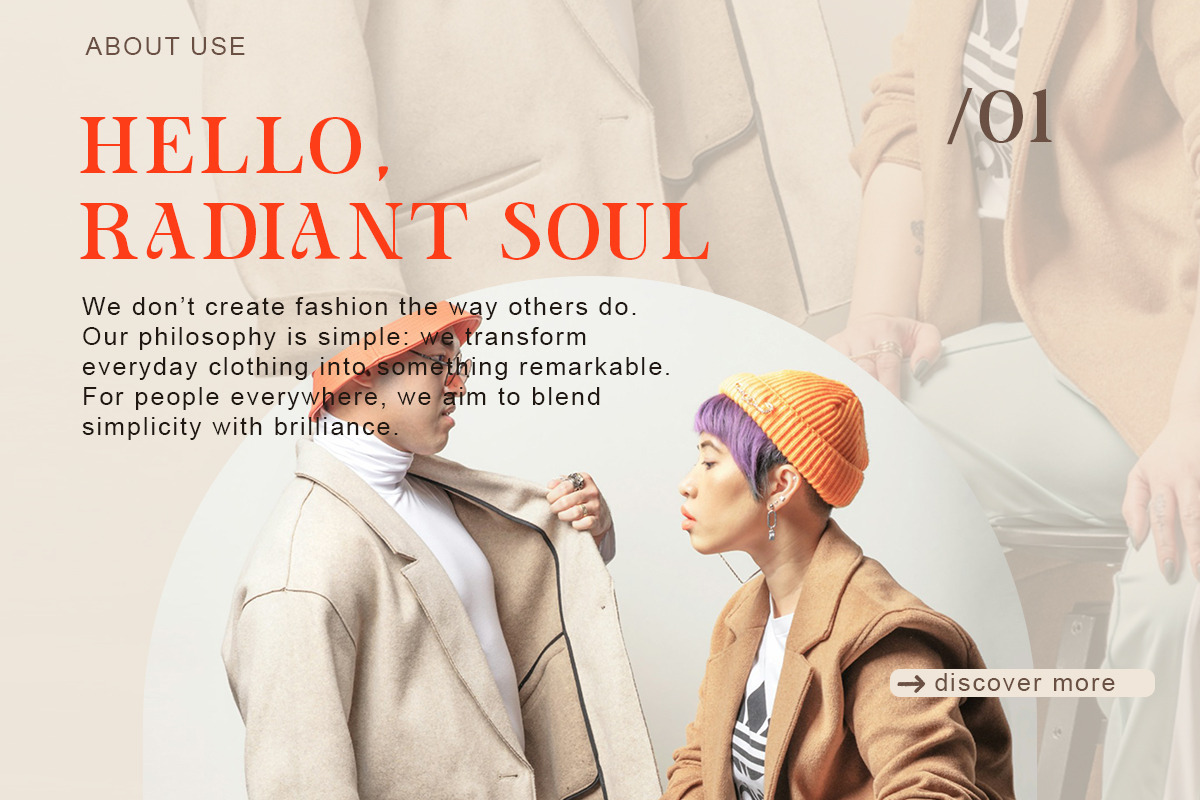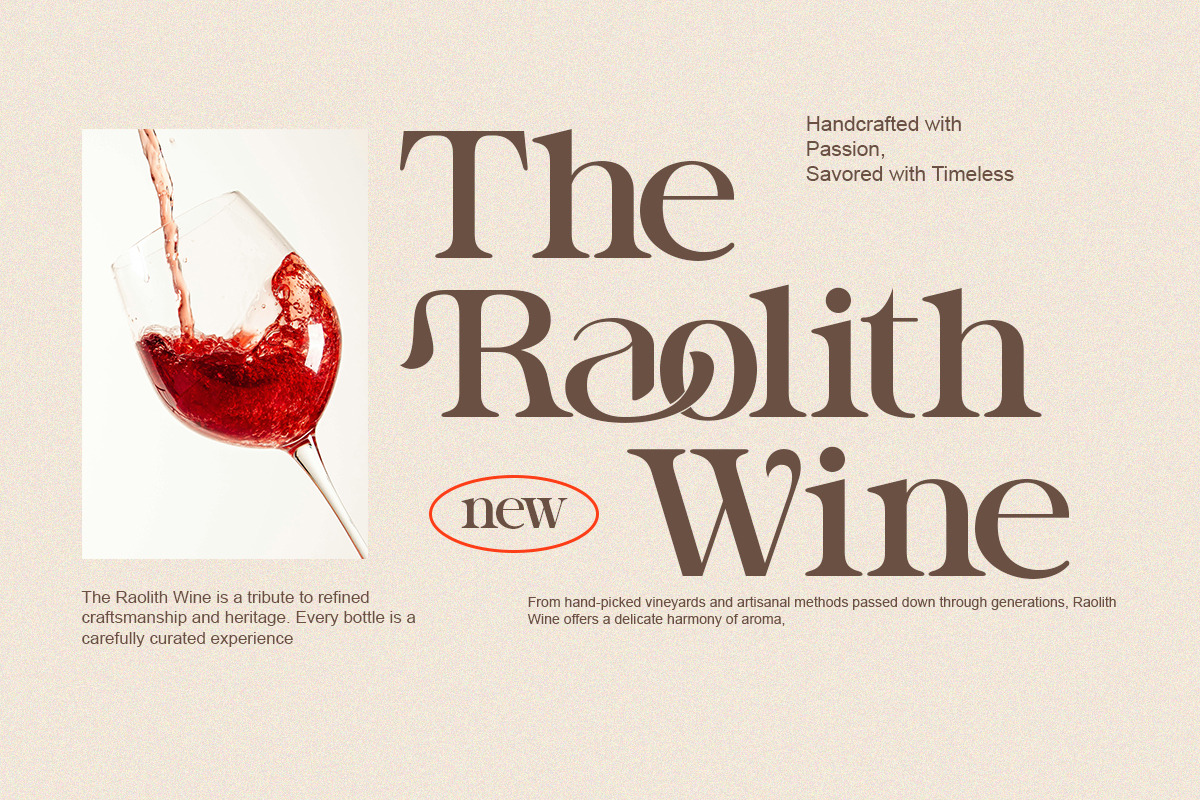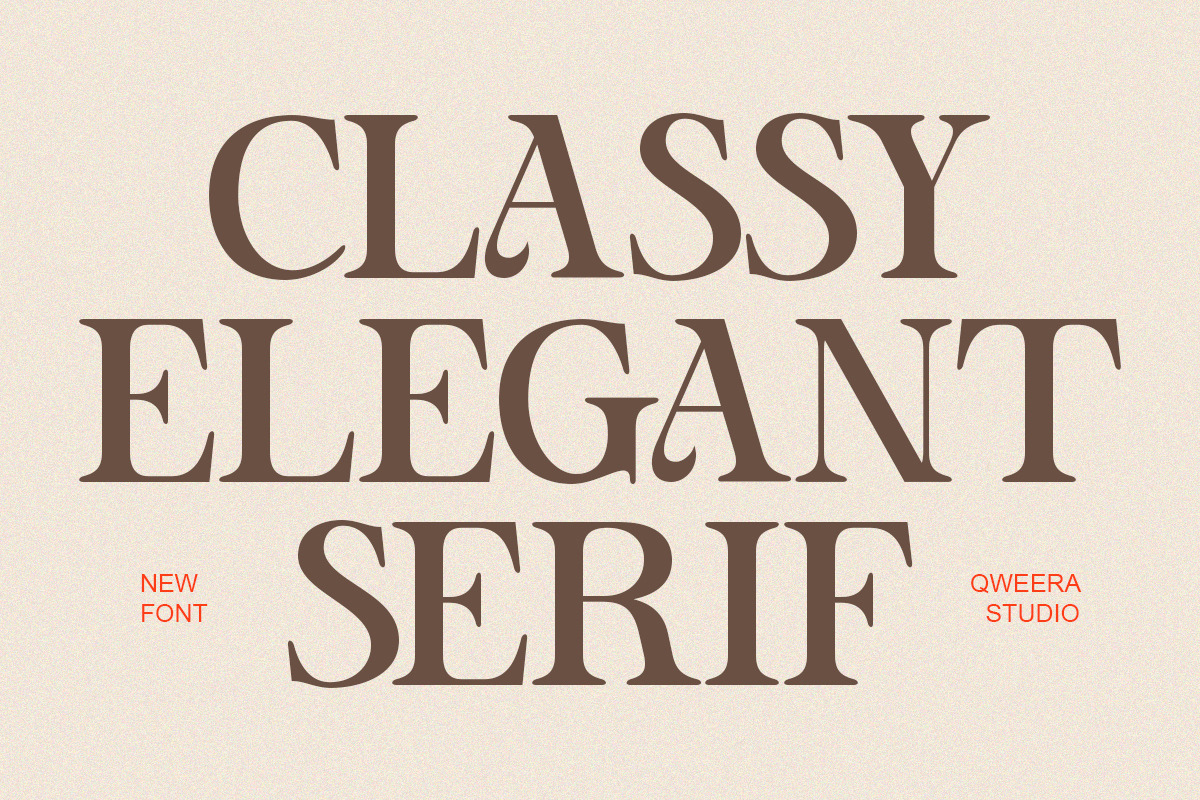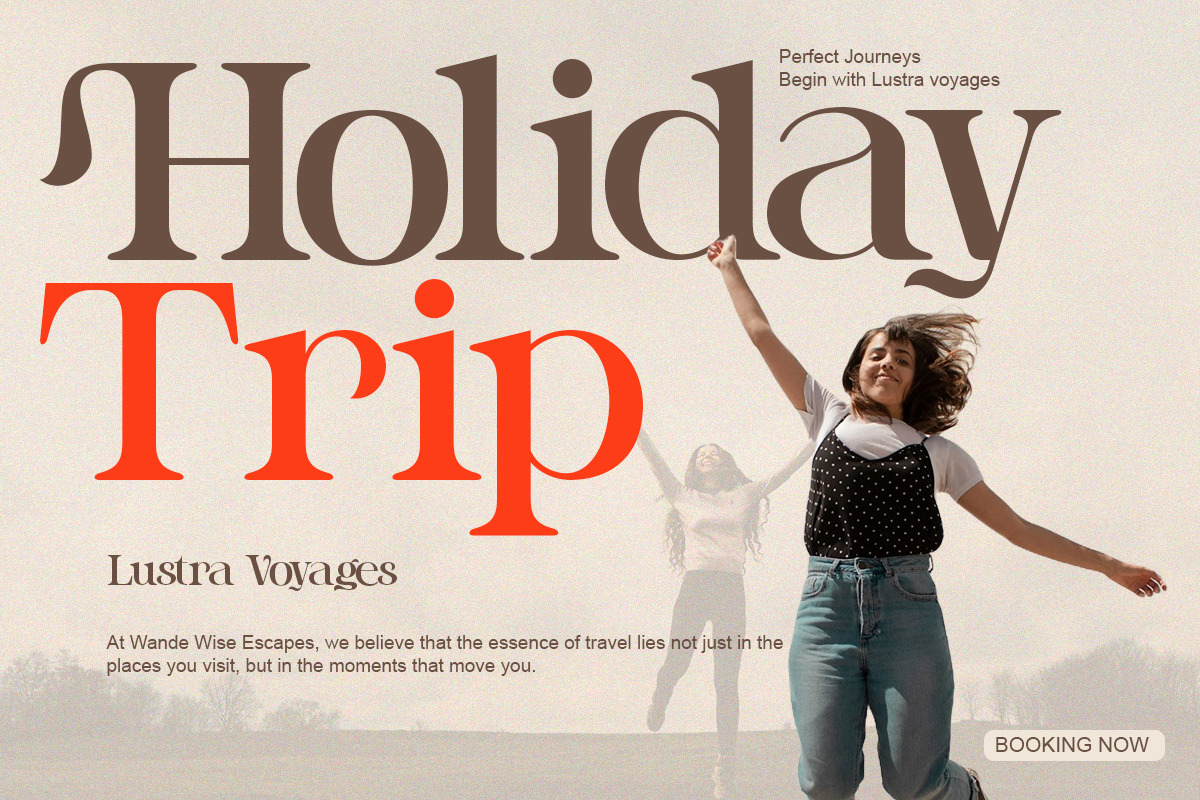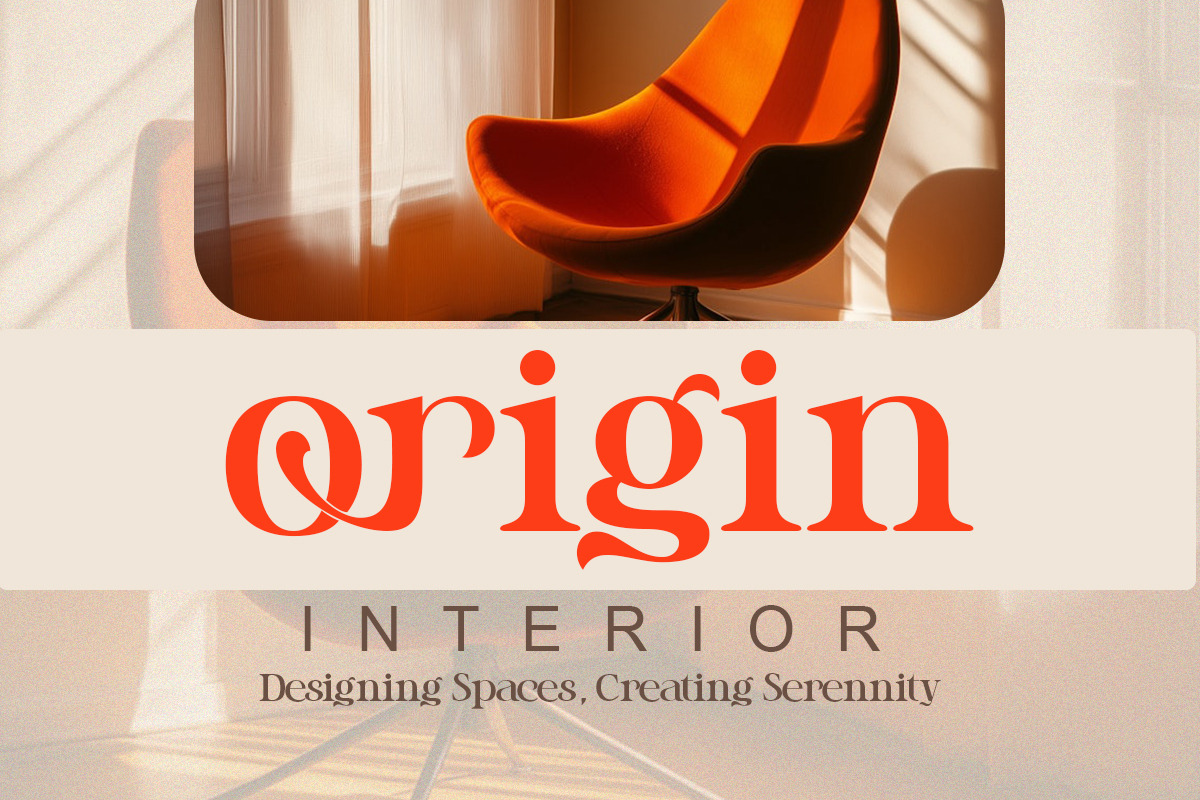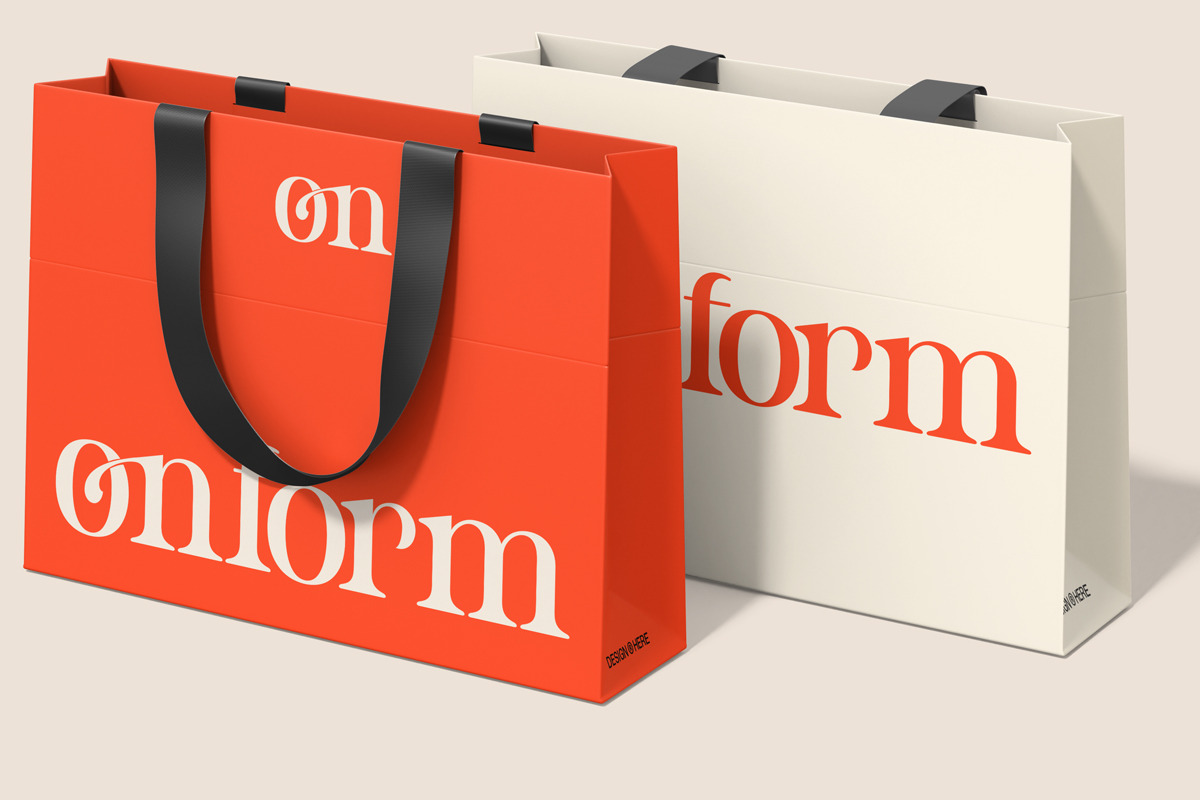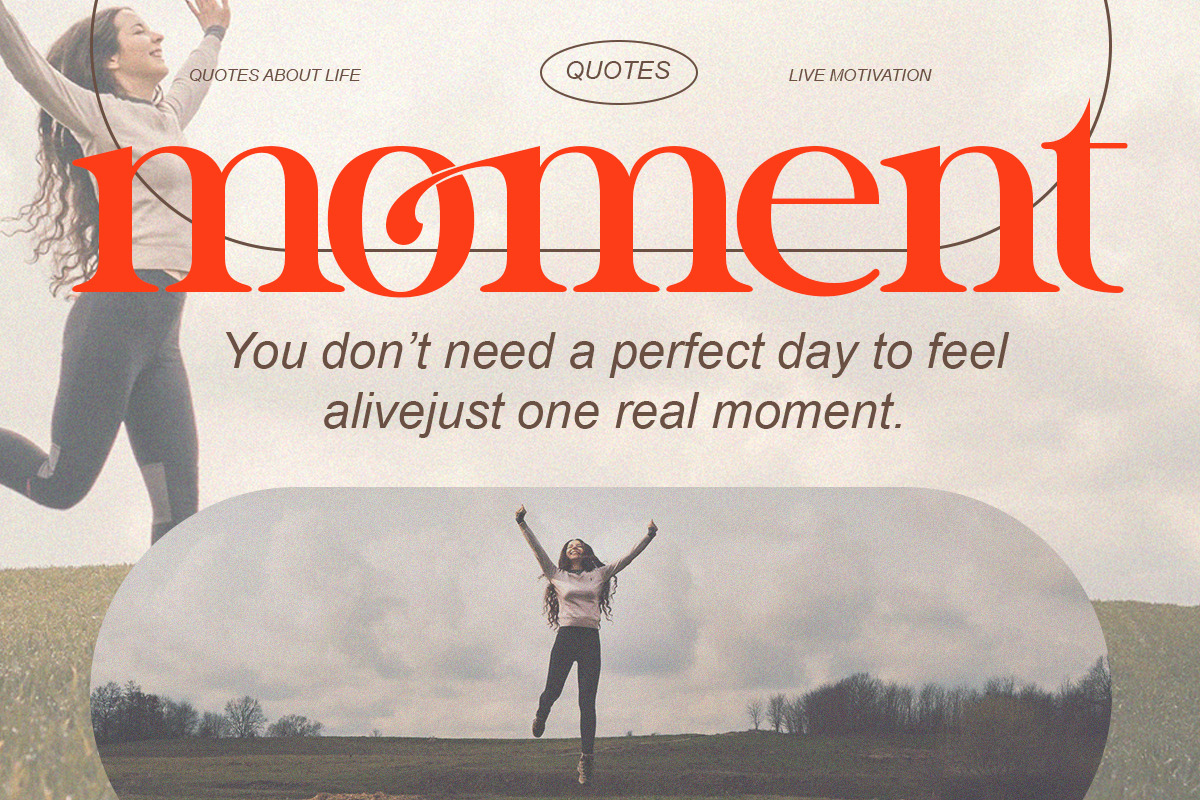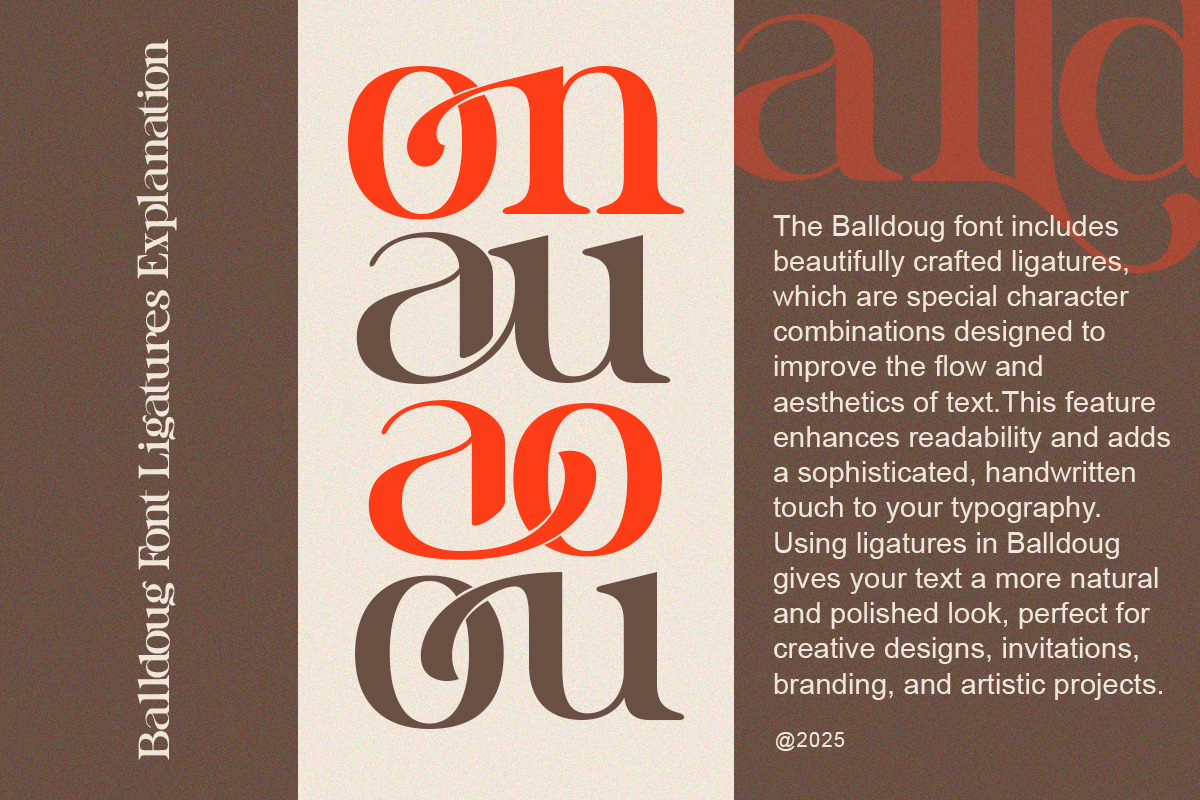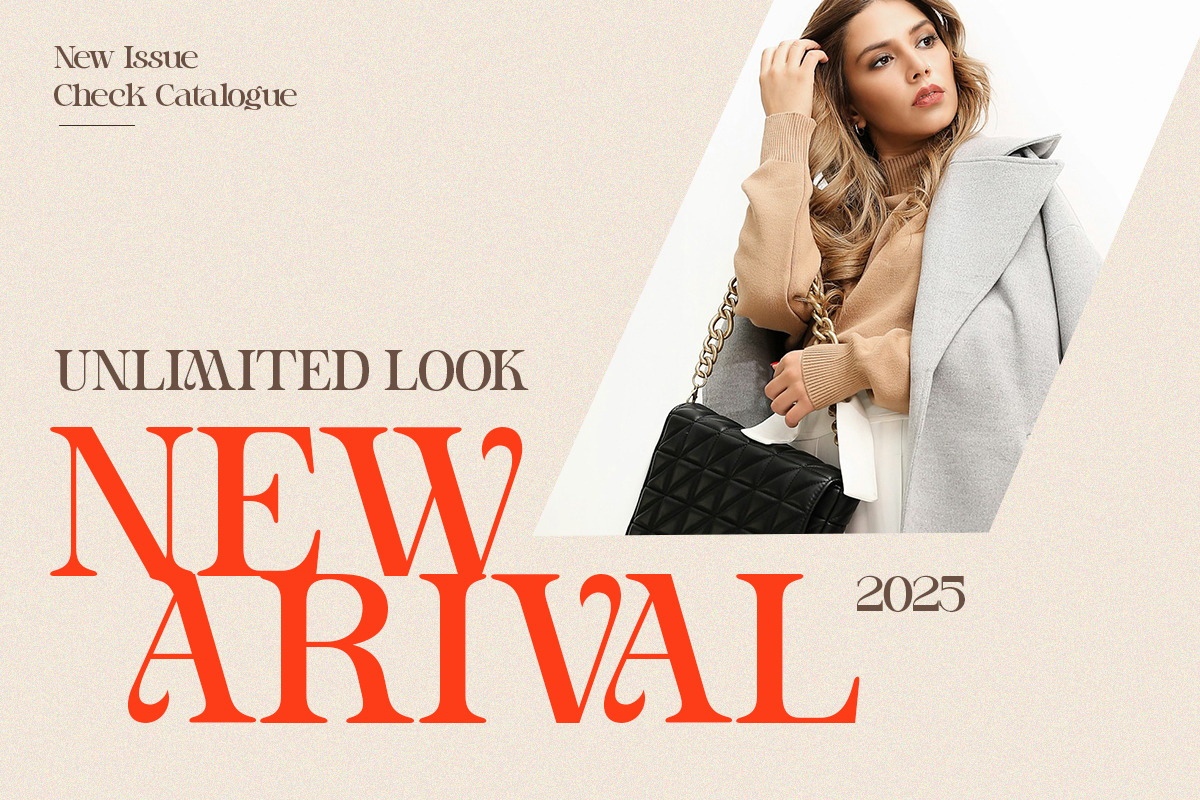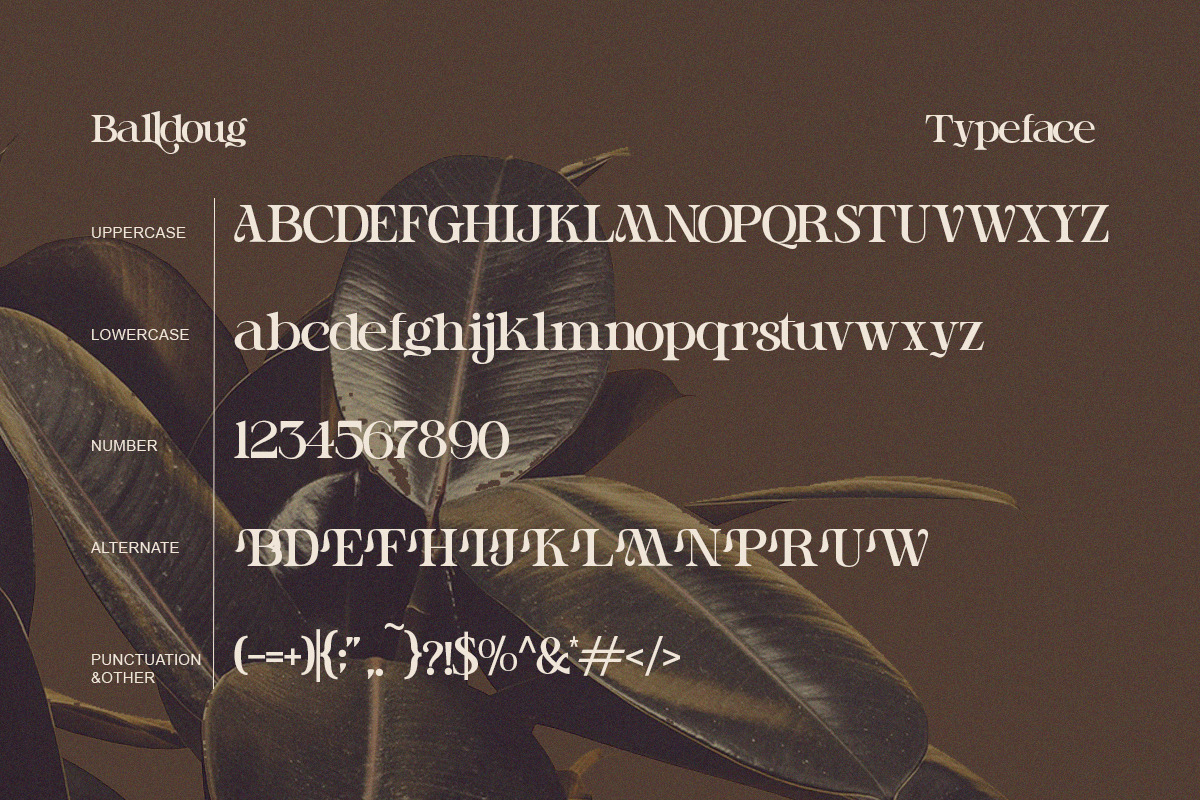
Balldoug - Modern Classic Serif
Introducing Balldoug – a modern serif font with elegant contrast, fluid curves, and artful ligatures. Balldoug is designed to deliver character and sophistication through every letter. The subtle retro cues, stylish terminals, and unique ligature combinations make it a top-tier choice for refined creative projects.
Ideal for designers who seek timeless elegance with a modern sensibility. Perfect for brand identities, product packaging, editorial headlines, or web typography, Balldoug brings a sense of class and clarity to every application.
- Regular & Italic
- Stunning alternates & stylish ligatures
- Optimized for both print & digital
- Branding & logotype projects
- Editorial layouts & cover designs
- Packaging & product labels
- Fashion campaigns & lookbooks
- Web hero banners & blog graphics
- Elegant wedding or invitation stationery